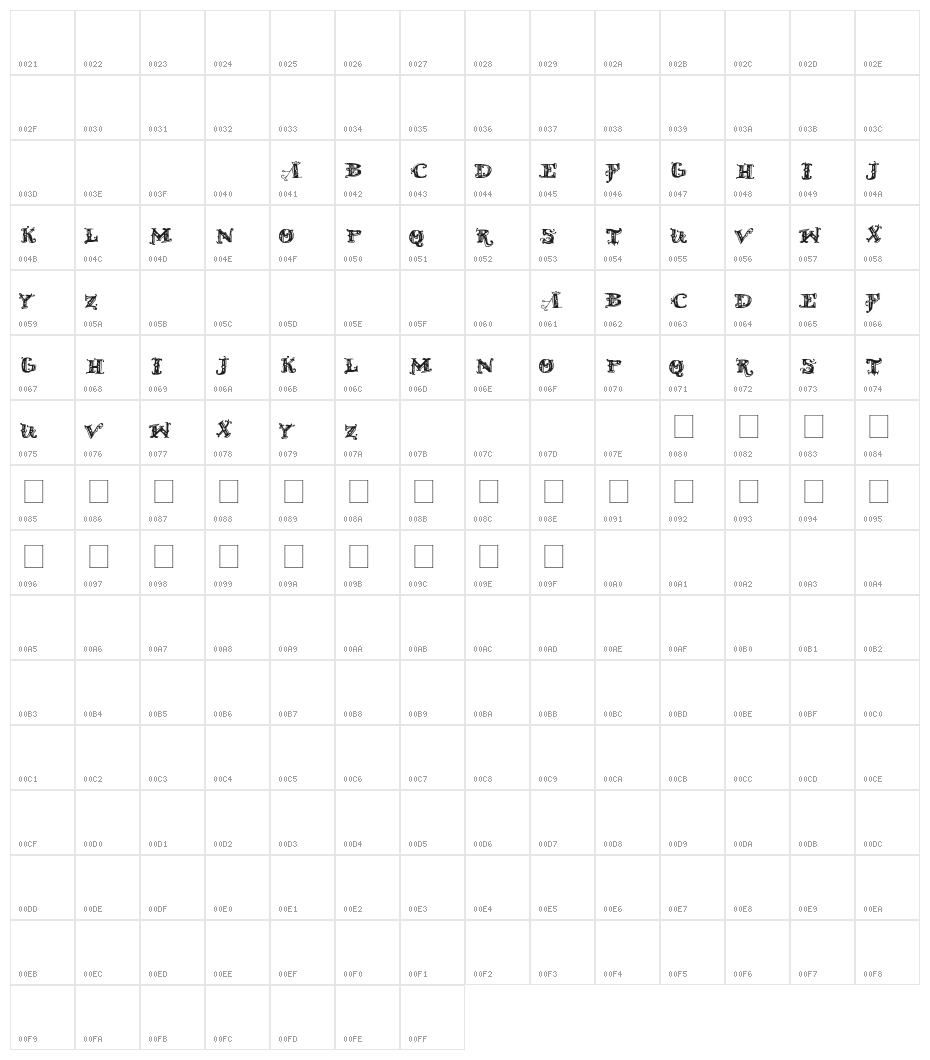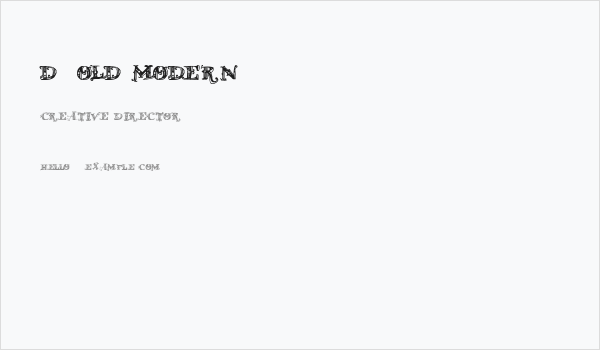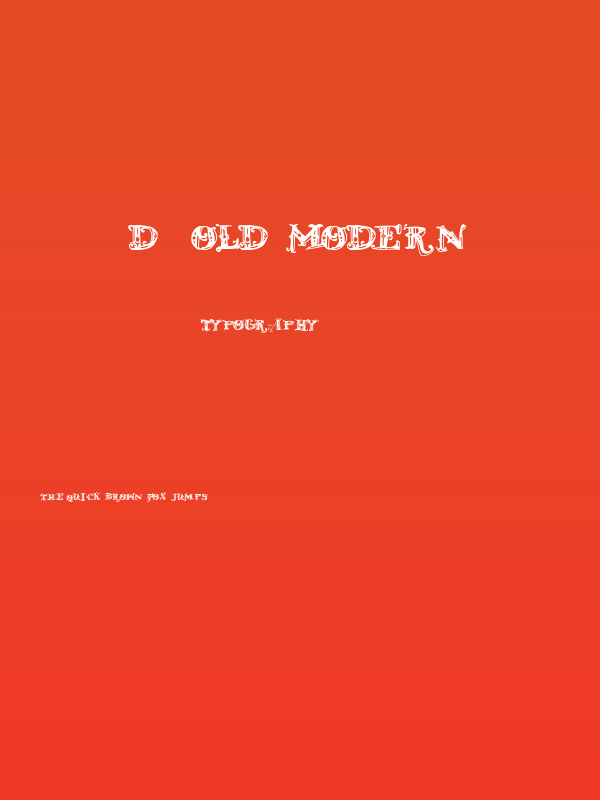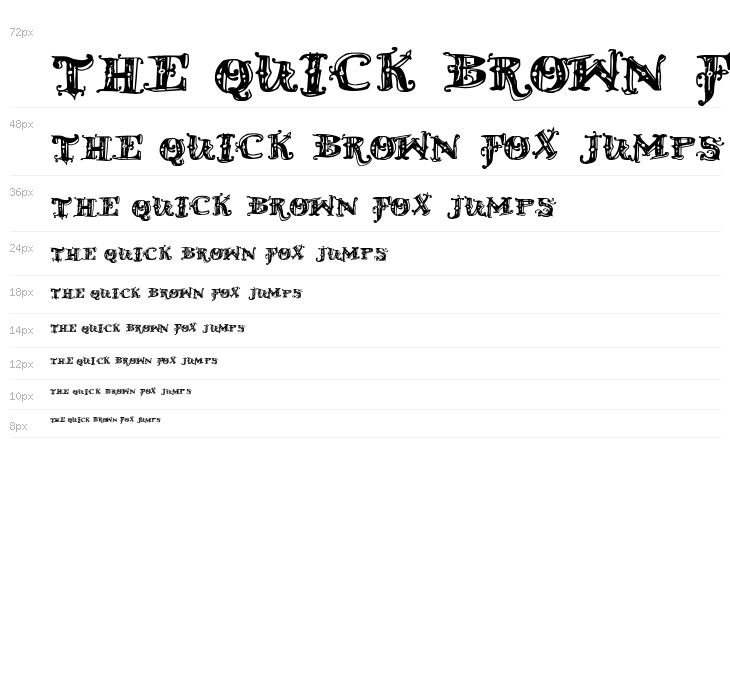
D_OLD MODERN Font
D_OLD MODERN Description
This font is a highly decorative and intricate typeface, characterized by its ornate and elaborate design. Each letter is adorned with flourishes and embellishments, giving it a vintage and artistic feel. The strokes are bold and varied, with a high contrast between thick and thin lines, adding to its dramatic appearance. The overall style is reminiscent of Victorian or Gothic influences, making it suitable for projects that require a touch of elegance and historical charm. The font's unique design makes it stand out, capturing attention with its detailed craftsmanship.
| Proposed Projects | Ideal for vintage posters, invitations, book covers, and branding that requires a historical or artistic touch. |